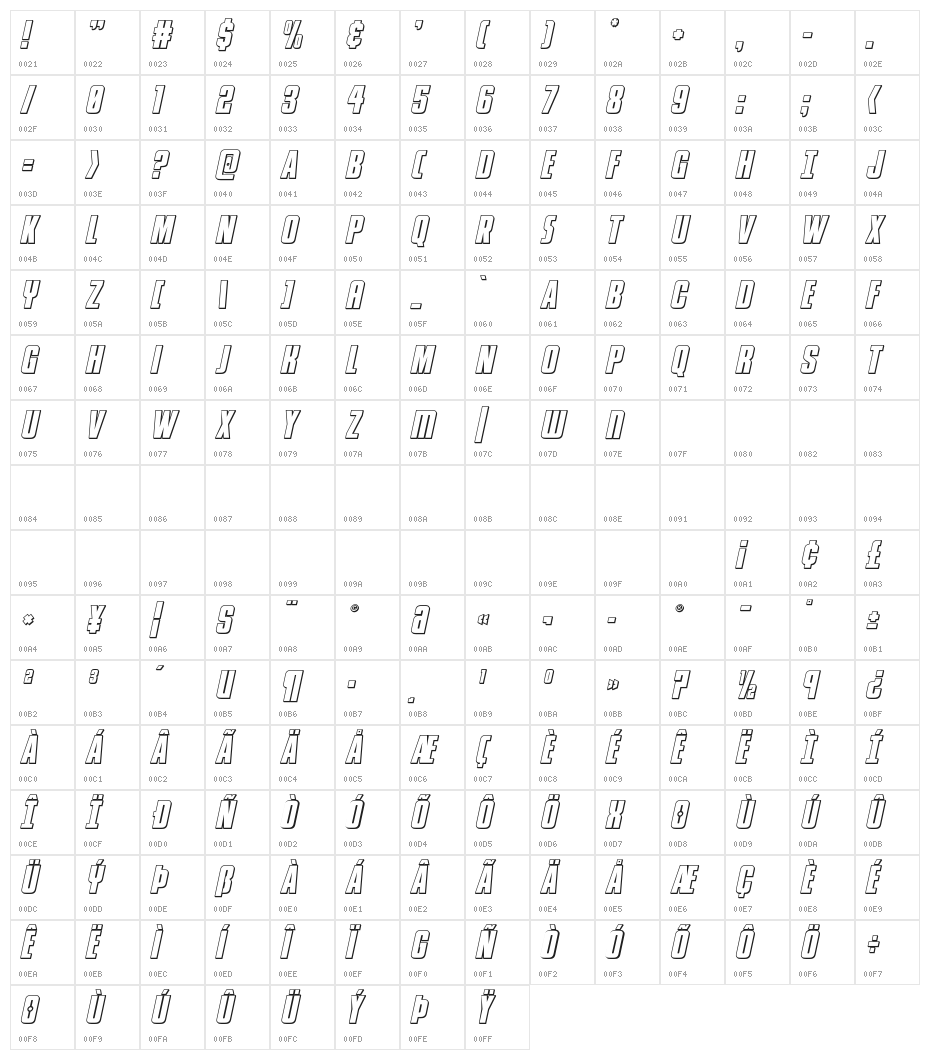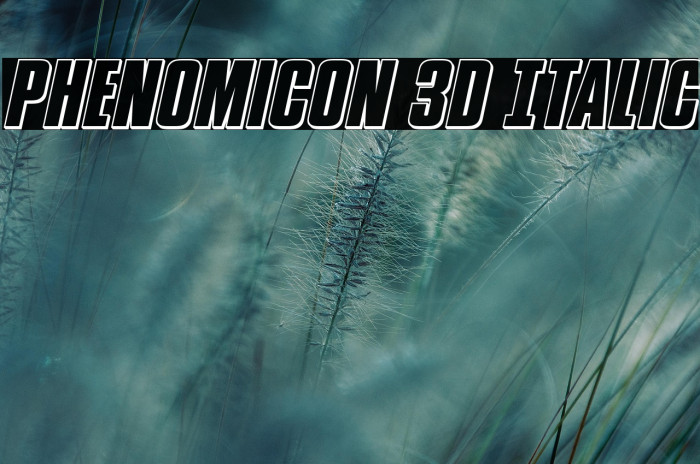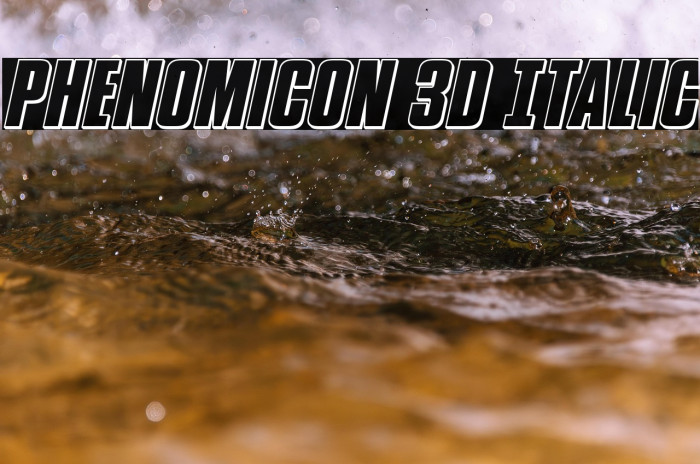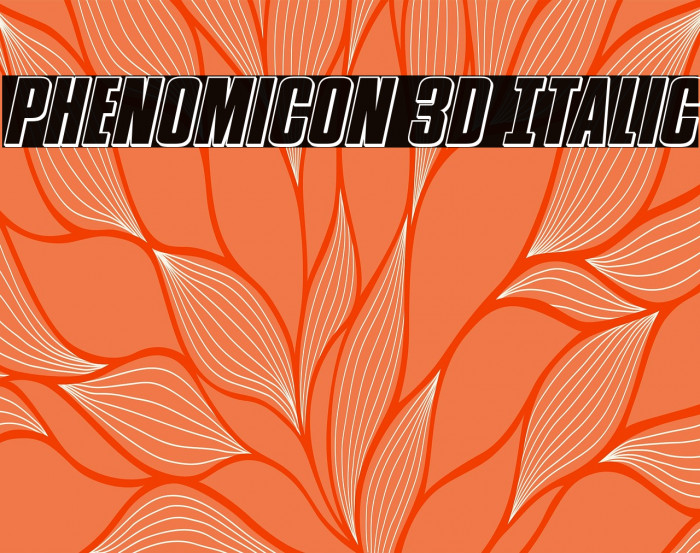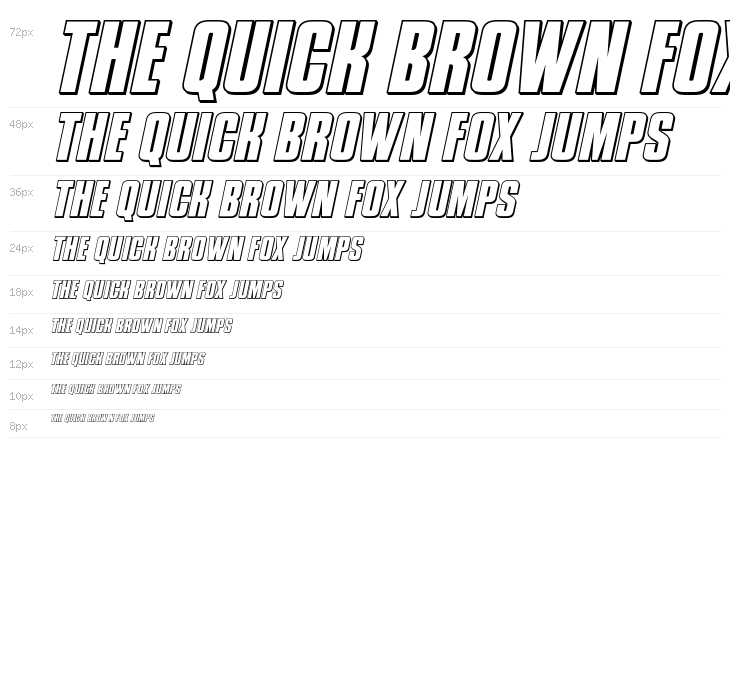
Phenomicon 3D Italic Font
Phenomicon 3D Italic Description
This font features a bold, three-dimensional appearance with a distinct italic slant, giving it a dynamic and energetic feel. The characters are outlined, adding depth and a shadow effect that enhances the 3D illusion. The uppercase and lowercase letters maintain a consistent style, with sharp angles and clean lines that contribute to its modern aesthetic. The numerals and special characters are designed to match the boldness and style of the alphabet, ensuring a cohesive look across all text elements. This font's strong presence makes it ideal for attention-grabbing designs.
Proposed ProjectsIdeal for posters, headlines, logos, and any design requiring a bold, eye-catching typeface.